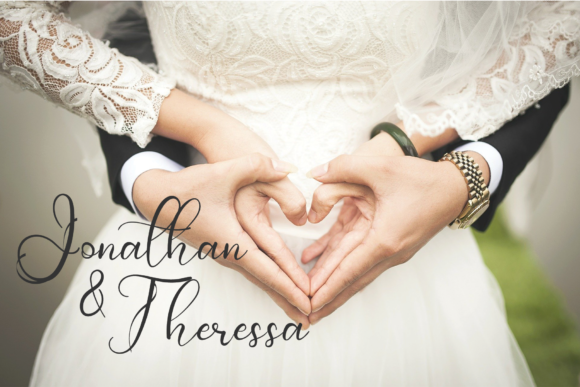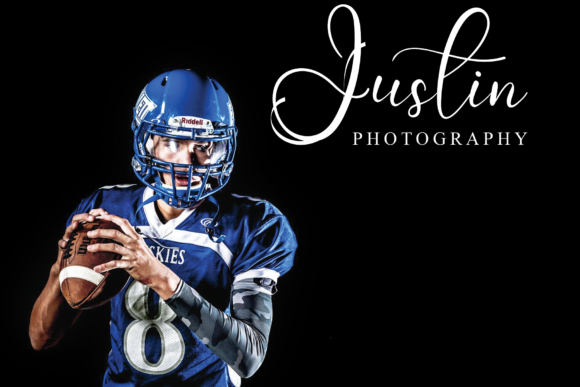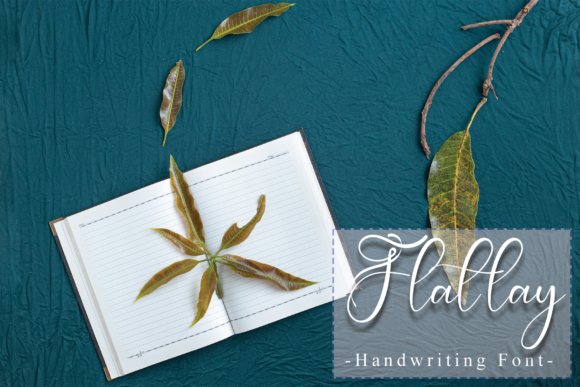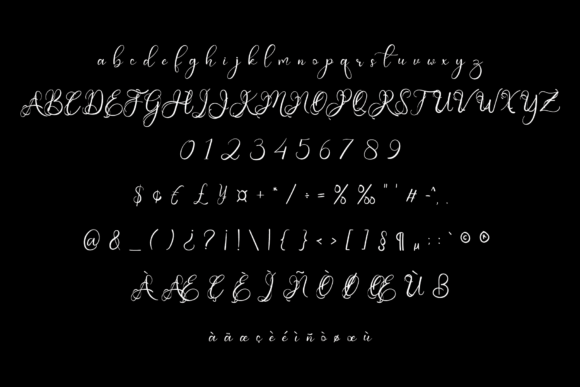
Discover the Elegance of American Font: A Unique Handwritten Style for Your Designs
Are you looking for a font that adds a touch of elegance and personality to your designs? Look no further than the American Font, a beautiful handwritten font that is perfect for a variety of projects. In this article, we’ll explore the features and benefits of American Font, and show you how it can elevate your designs to the next level.
What is American Font?
American Font is a unique and elegant handwritten font that is designed to bring a personal touch to your designs. Its flowing lines and cursive style make it perfect for projects that require a sophisticated and refined look. Whether you’re designing wedding invitations, thank you cards, or greeting cards, American Font is the perfect choice.
Features of American Font
So, what makes American Font so special? Here are just a few of its key features:
- Unique and Elegant Design: American Font has a distinctive and elegant design that sets it apart from other fonts. Its handwritten style gives it a personal touch that is perfect for designs that require a human touch.
- Versatile: American Font is incredibly versatile and can be used for a wide range of projects, from wedding invitations and greeting cards to logos and branding materials.
- Easy to Read: Despite its elegant and cursive style, American Font is easy to read and understand, making it perfect for designs that require a clear and concise message.
- Scalable: American Font is highly scalable, meaning it looks great at any size, from small captions to large headings.
Uses of American Font
American Font is perfect for a wide range of design projects, including:
- Wedding Invitations: Add a touch of elegance and sophistication to your wedding invitations with American Font.
- Thank You Cards: Show your appreciation in style with American Font, perfect for thank you cards and other expressions of gratitude.
- Greeting Cards: Whether it’s a birthday, anniversary, or holiday, American Font is perfect for creating beautiful and personalized greeting cards.
- Logos and Branding: Use American Font to create a unique and memorable logo or branding materials that reflect your personality and style.
Tips for Using American Font
Here are a few tips for getting the most out of American Font:
- Use it Sparingly: American Font is a statement font, so use it sparingly to add emphasis and personality to your designs.
- Pair it with Other Fonts: American Font pairs well with other fonts, so don’t be afraid to experiment with different combinations to find the perfect look.
- Experiment with Colors: American Font looks great in a variety of colors, so don’t be afraid to experiment and find the perfect hue for your design.
| Font Name | American Font |
| Author | erik studio |
American Font is a unique and elegant handwritten font that is perfect for designers and crafters looking to add a personal touch to their designs. With its flowing lines and cursive style, it’s perfect for a wide range of projects, from wedding invitations and greeting cards to logos and branding materials. Whether you’re a professional designer or a DIY crafter, American Font is a great choice for anyone looking to add a touch of elegance and sophistication to their designs.